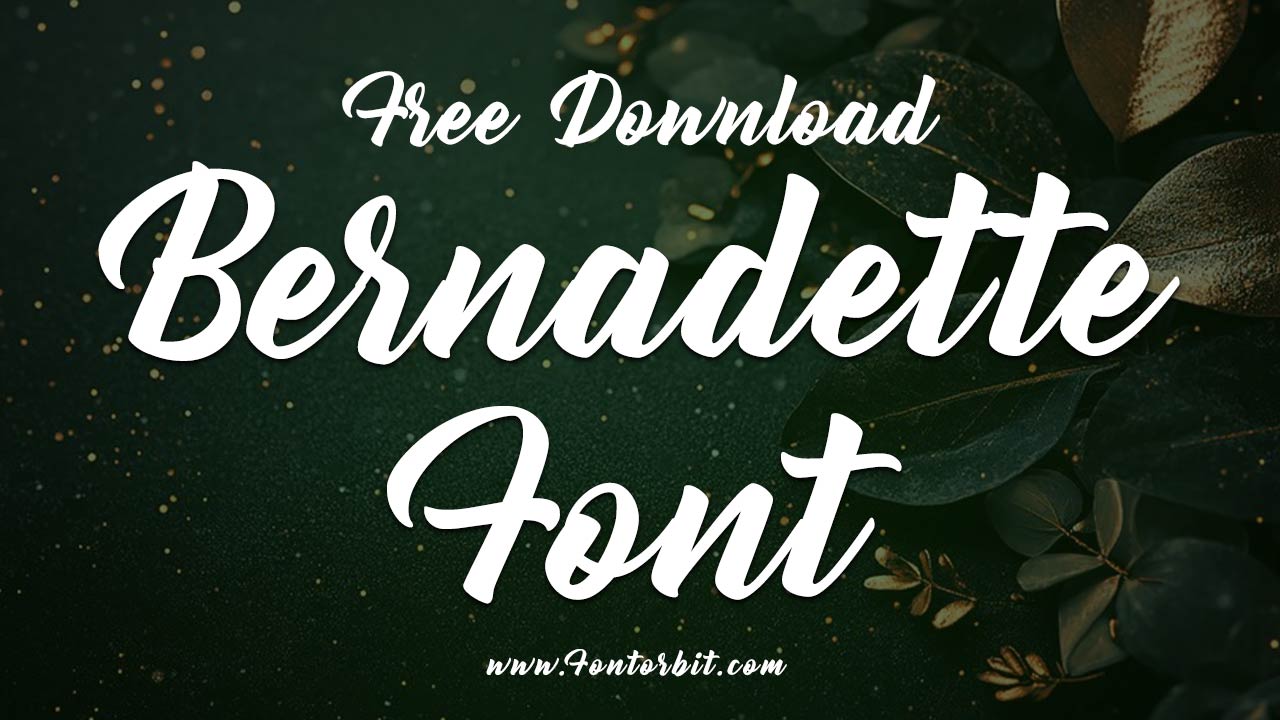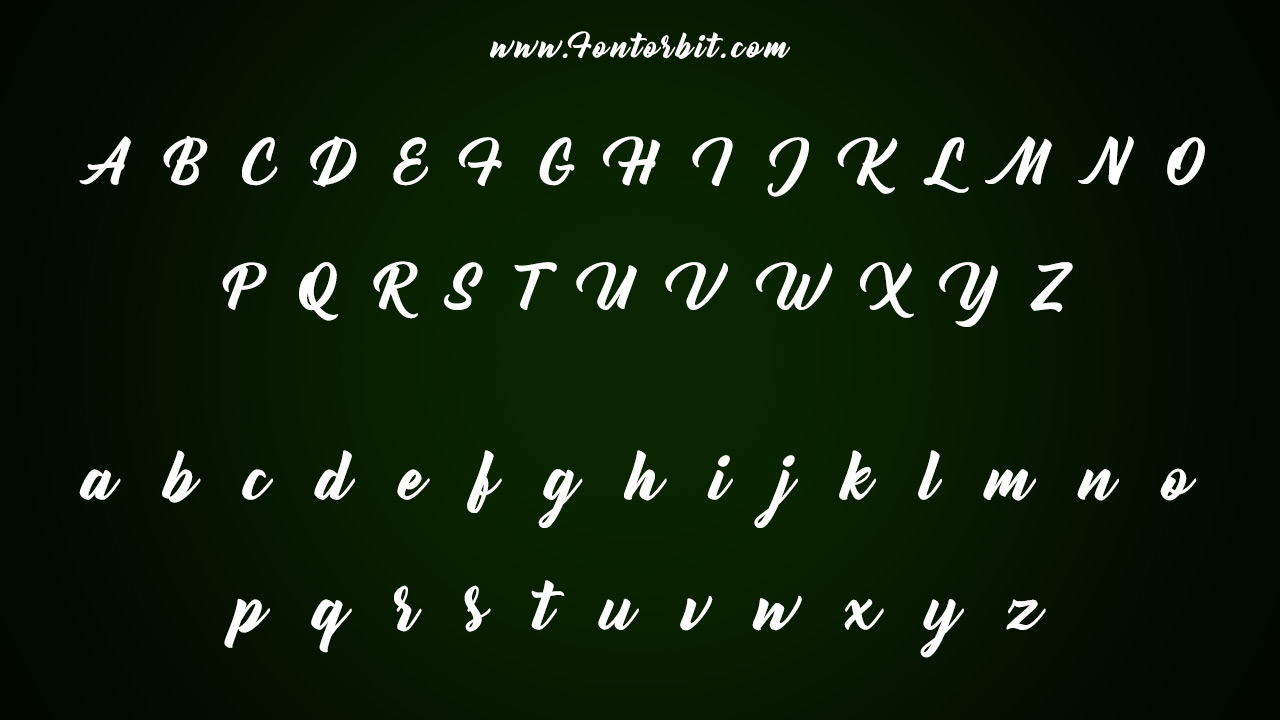
Bernadette Font, designed by StereoType, is a charming and elegant script typeface first published on 4th January ’21.
Type Of The Bernadette Font (Font Family)
a. Bernadette Regular
The Bernadette Font is a distinctive script typeface available in OTF and TTF formats and is free for personal use. It features elegant, flowing letterforms of hand-drawn quality.
Its character map includes a broad range of glyphs, offering extensive coverage for elegant and personal projects. The font family presents a refined collection of graceful glyphs.
The Bernadette Font Found In Use
The Bernadette Font is commonly used across various design mediums for its elegant and refined appearance. It is often seen in wedding invitations and high-end branding. On greeting cards and creative materials, the Bernadette Font enhances visual appeal, making content more engaging and memorable.
Bernadette Font, designed by StereoType, offers an elegant and stylish script design perfect for a range of personal and creative projects. This refined, handwritten font offers a graceful, stylish look ideal for adding a personal touch to various projects.
With its sophisticated design and versatile features, Bernadette Font is perfect for creating stylish, memorable designs.
1.What Is The Best Way To Pair Bernadette Font With Other Fonts?
Pair Bernadette Font with modern sans-serifs like Helvetica or clean typefaces like Gotham for a stylish contrast that highlights its elegant script.
2.Who Designed The Bernadette Font?
Bernadette Font was designed by StereoType.
3.What Are The Different Character Sets Available In Bernadette Font?
Bernadette Font includes standard Latin characters, numerals, punctuation, and decorative glyphs.
5.What Are The Different Language Support Options For Bernadette Font?
Bernadette Font supports a range of Latin-based languages but may not include full coverage for non-Latin scripts.
6.What Are The Advantages Of Using Bernadette Font In Design?
Bernadette Font adds elegance and sophistication, making it ideal for stylish invitations, branding, and personal projects with a refined touch.